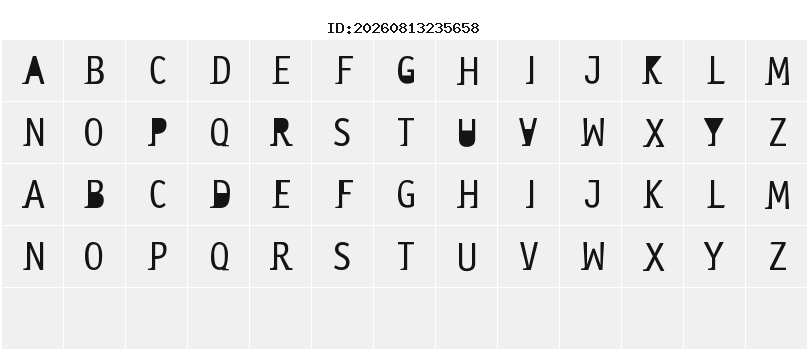
About saneserif.ttf
saneserif.ttf is a modern, elegant sans-serif font designed for ultimate readability and visual harmony. Perfect for branding, headlines, web design, and print materials.